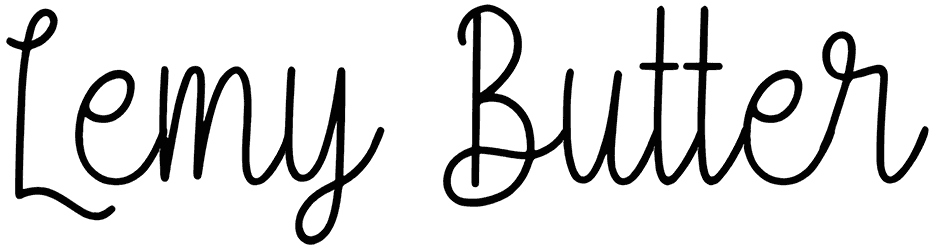
Lemy Butter Font
Giving an elegant face to texts is an easy task with a cursive font like Lemy Butter. From a Christmas flyer to a daily Instagram story, this soft handwritten font would be a nice selection. You don’t have its punctuation marks, yet as a minimal letterform, it can be added to your projects and take them to a higher level.